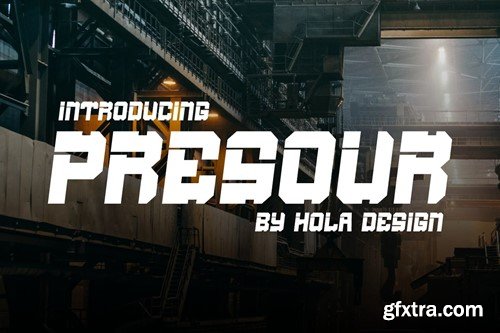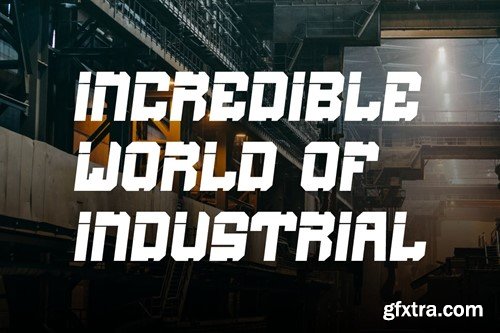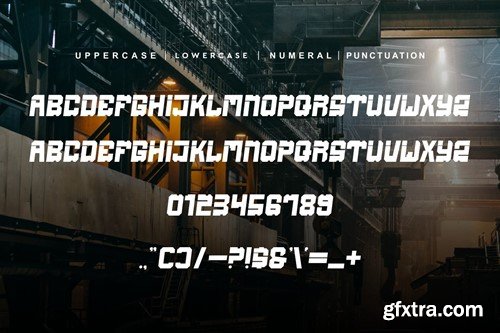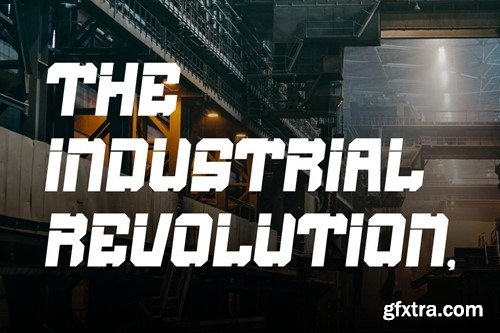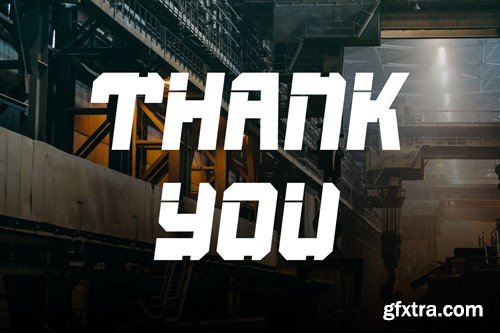
Presour Font
Presour Font Font is unique . Ready to use for your design like labeling, movie sceen, poster, movie title, gigs, album covers, logos, and much more. Included